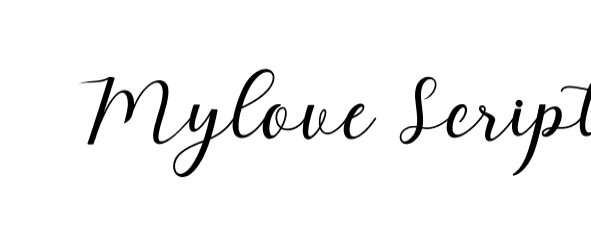
Discover the Elegance of Mylove Font In the world of design, the right typography can elevate a project from ordinary to extraordinary. Enter Mylove Font, a stunning example of flowing elegance that captures the essence of romance in every character....